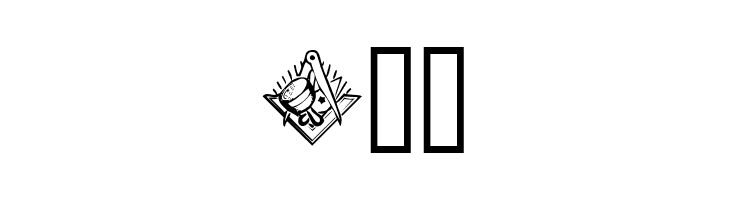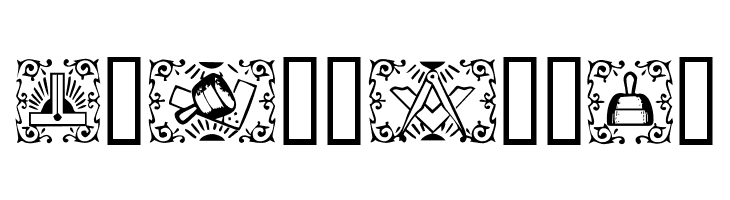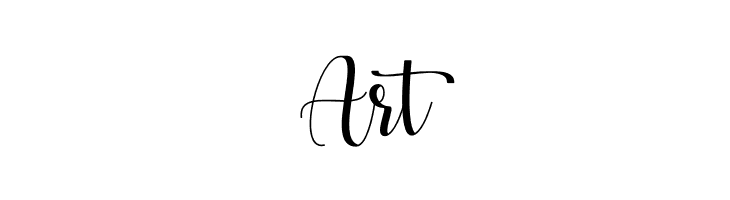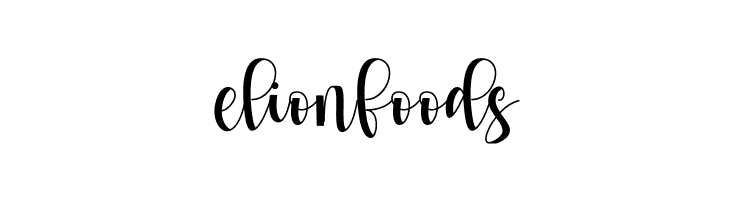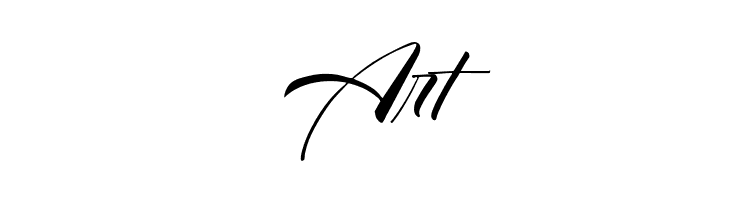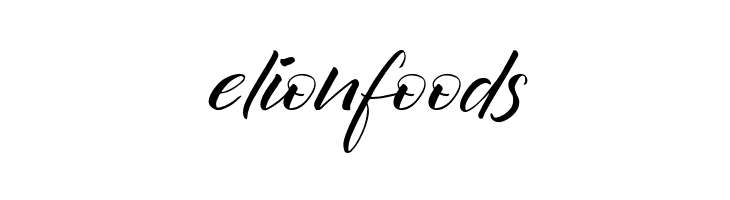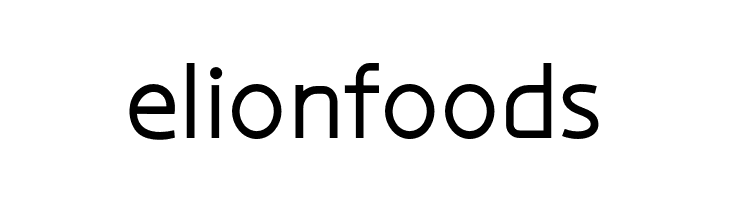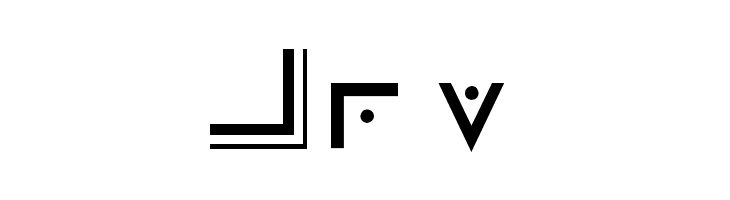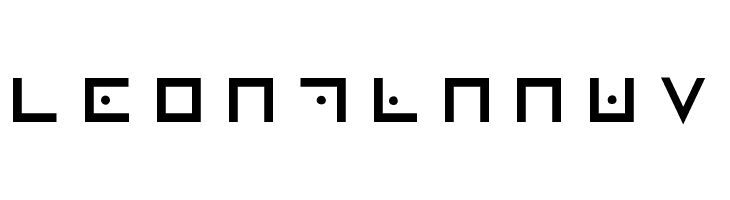
• Maskesa Regular
A bold, geometric font with unique horizontal accents and a futuristic style.
• Maskid Regular
A display font composed of illustrated mask icons for each character.
• Masks 3D Regular
Abstract 3D wireframe masks form each character, creating a unique and artistic display font.
• Maskulin Regular
An elegant, flowing script font with smooth, cursive strokes.
• Maskulin-Regular
An elegant and flowing script font with smooth, cursive strokes.
• Maskuroh
A flowing, cursive font with elegant loops and artistic flair.
• Mason Regular
• Masone
• Masonic
• Masonic Cipher & Symbols